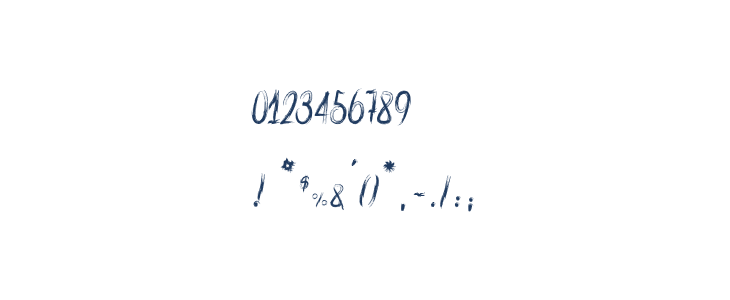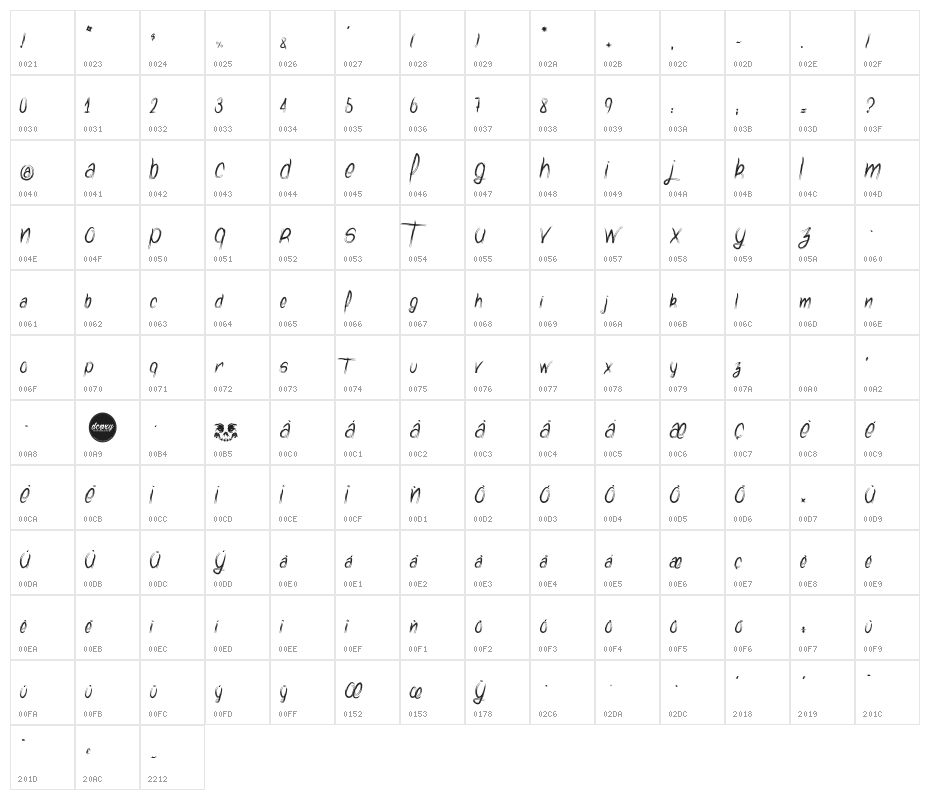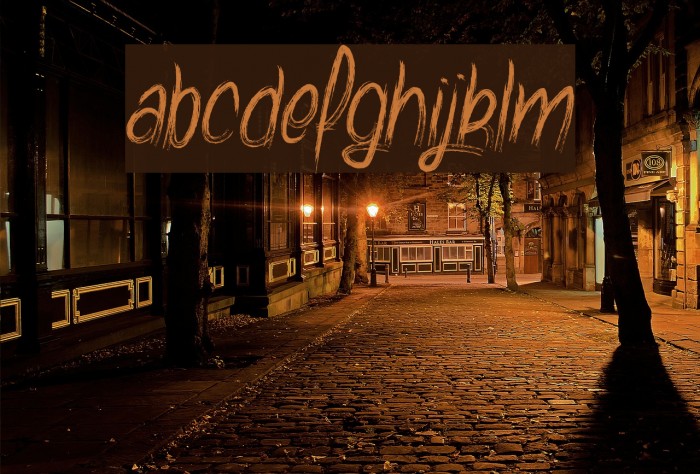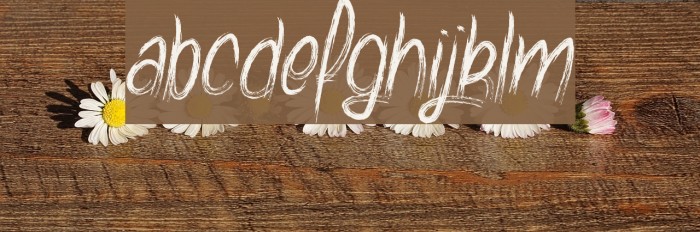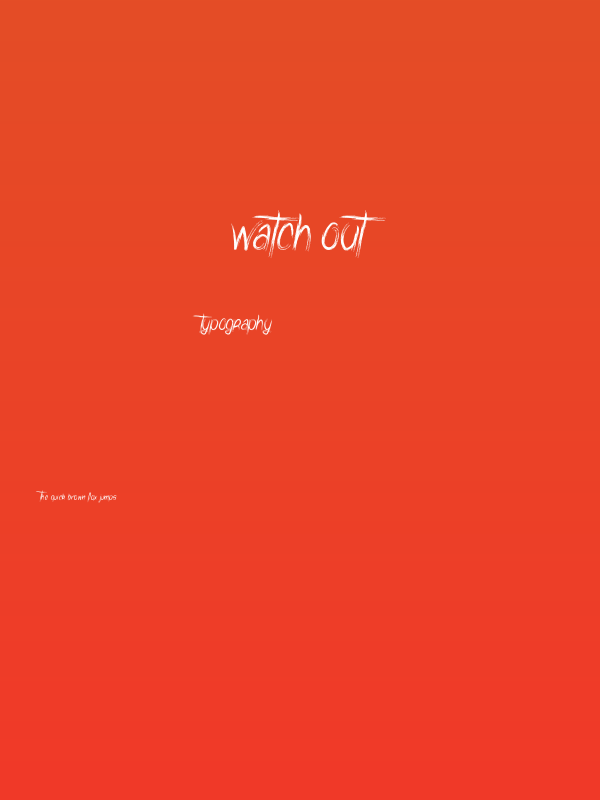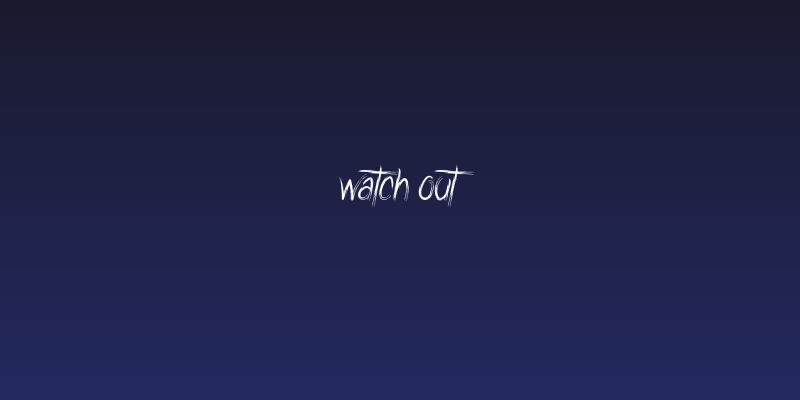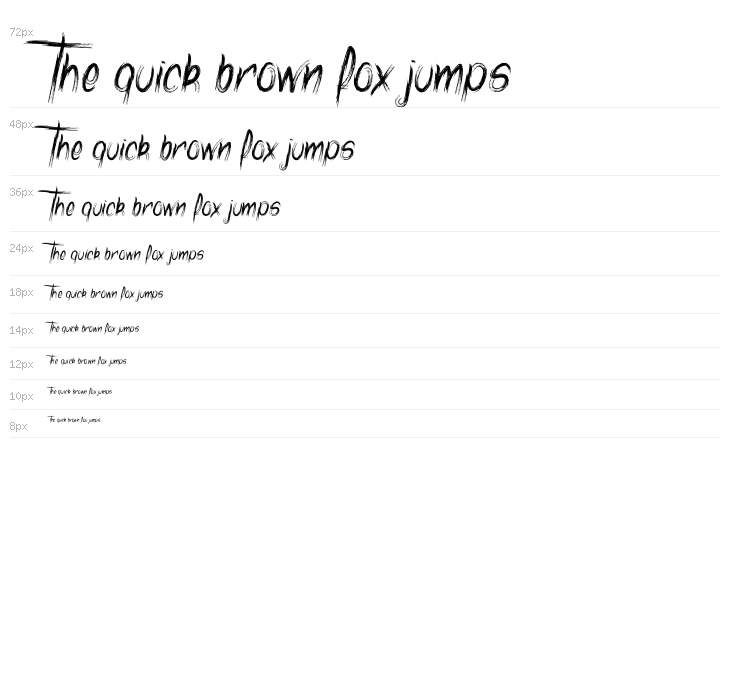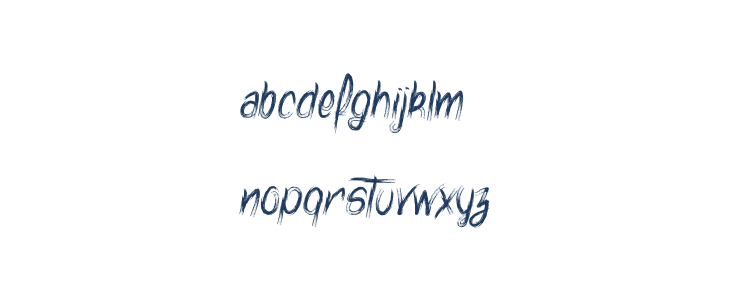
Watch Out Font
This font exhibits a dynamic and energetic style with brush-like strokes that give it a hand-drawn appearance. The characters are slightly irregular, adding to its artistic and expressive nature. The uppercase and lowercase letters maintain a consistent flow, with some characters featuring elongated strokes that enhance the overall movement of the text. The numbers and special characters are crafted with the same brush-like texture, ensuring uniformity across all elements. This font's unique style makes it stand out, offering a sense of creativity and spontaneity.
| Overall Style | Artistic, Expressive |
| Use Case | Logos, Headlines, Posters |
| Proposed Projects | Ideal for creative projects such as posters, album covers, artistic branding, and event invitations. |